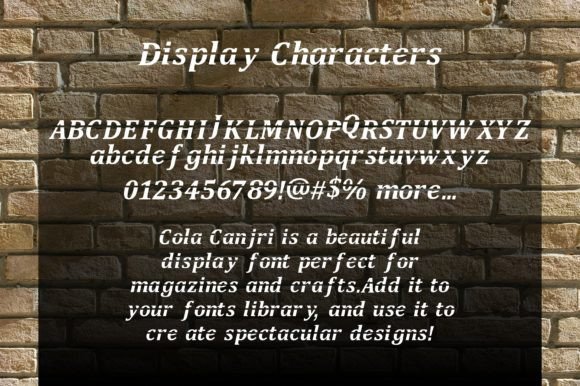
Introducing Cola Canjri Font: Elevate Your Designs with a Beautiful Display Font
Are you a designer, crafter, or DIY enthusiast looking for a unique and stunning font to take your projects to the next level? Look no further than Cola Canjri Font! This gorgeous display font is perfect for creating eye-catching magazines, crafts, and designs that will leave a lasting impression. In this article, we’ll dive into the world of Cola Canjri Font, exploring its features, benefits, and uses, as well as provide tips on how to make the most of this incredible font.
What is Cola Canjri Font?
Cola Canjri Font is a beautiful display font designed to add a touch of elegance and sophistication to your designs. With its unique and intricate lettering, this font is sure to grab attention and make your projects stand out. Whether you’re working on a magazine, craft, or any other design project, Cola Canjri Font is the perfect choice.
Key Features of Cola Canjri Font
- Unique and Intricate Lettering: Cola Canjri Font boasts a distinctive and detailed lettering style that will add a touch of personality to your designs.
- Perfect for Display Purposes: This font is specifically designed for display purposes, making it ideal for headlines, titles, and other attention-grabbing elements.
- Magazine-Ready: Cola Canjri Font is perfect for magazine designs, adding a touch of sophistication and elegance to your editorial projects.
- Craft-Friendly: This font is also great for crafters, providing a beautiful and unique font for DIY projects, such as papercraft, scrapbooking, and more.
Benefits of Using Cola Canjri Font
So, why should you choose Cola Canjri Font for your design projects? Here are just a few benefits of using this amazing font:
- Adds Visual Interest: Cola Canjri Font adds a touch of visual interest to your designs, making them more engaging and attention-grabbing.
- Enhances Creativity: With its unique and intricate lettering, Cola Canjri Font inspires creativity and imagination, helping you to think outside the box.
- Versatile: This font is versatile and can be used in a variety of design projects, from magazines and crafts to branding and advertising.
Tips for Using Cola Canjri Font
To make the most of Cola Canjri Font, here are a few tips to keep in mind:
- Use it as a Display Font: Cola Canjri Font is designed for display purposes, so use it to create eye-catching headlines and titles.
- Experiment with Colors and Textures: Add depth and interest to your designs by experimenting with different colors and textures.
- Pair it with Other Fonts: Combine Cola Canjri Font with other fonts to create a unique and visually appealing typography.
In conclusion, Cola Canjri Font is a beautiful display font that is perfect for designers, crafters, and DIY enthusiasts looking to elevate their designs. With its unique and intricate lettering, this font is sure to add a touch of elegance and sophistication to your projects. Whether you’re working on a magazine, craft, or any other design project, Cola Canjri Font is a great choice. So, add it to your fonts library today and start creating spectacular designs!